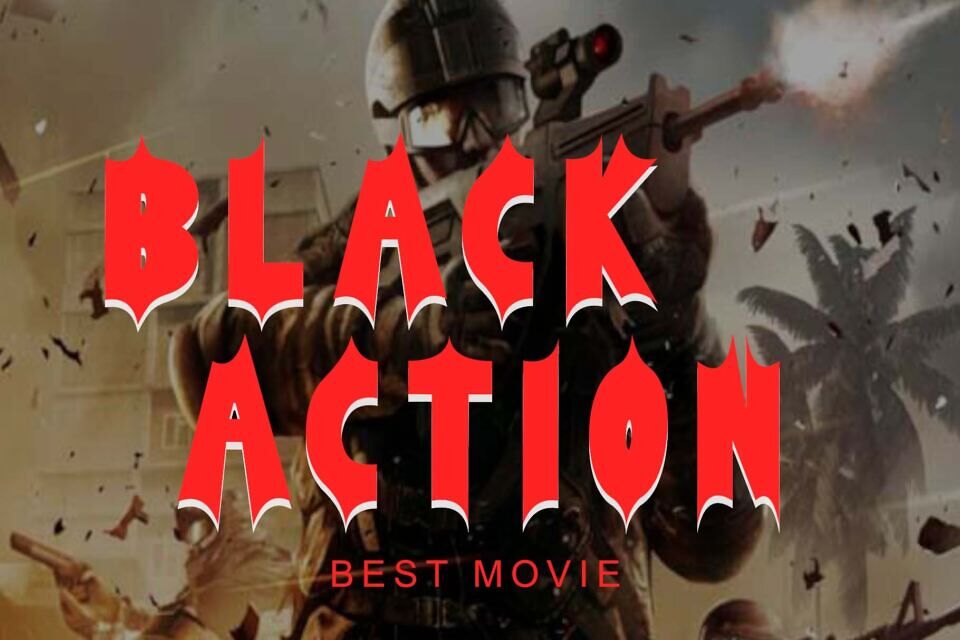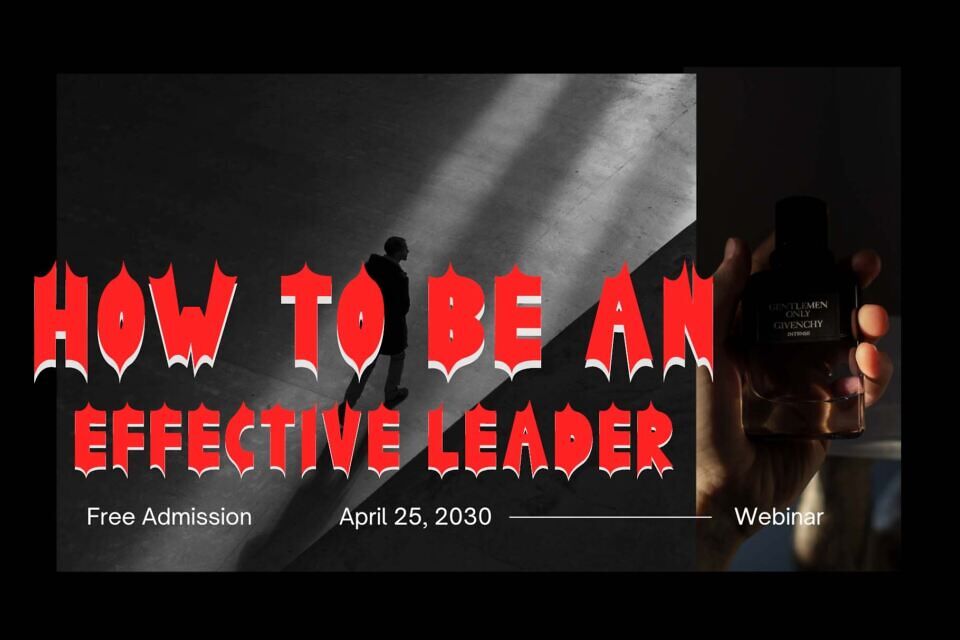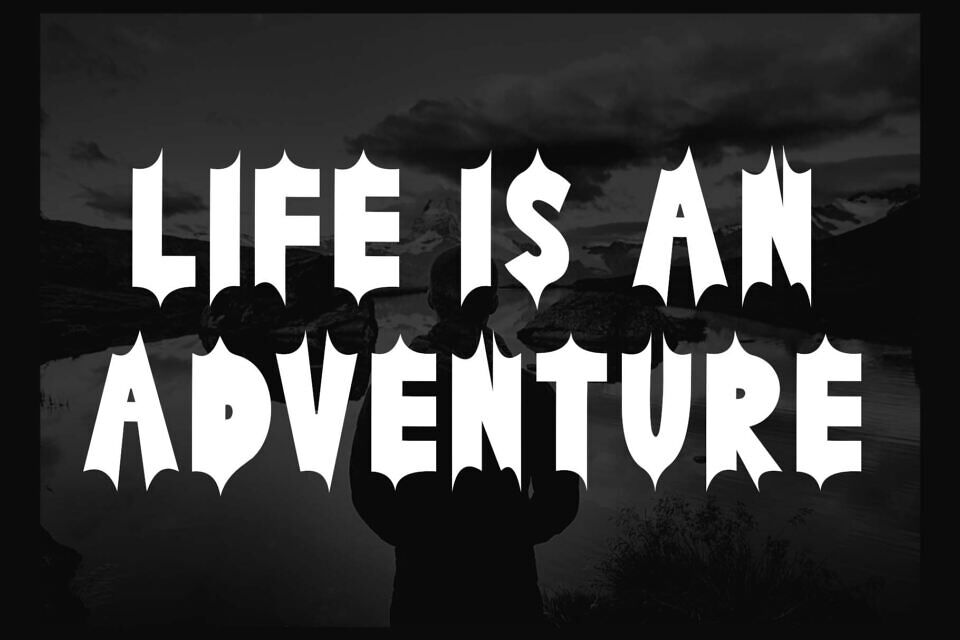
Battle Hunter Font
Battle Hunter is an elegant and professional blackletter font. It comes with capital letters, lowercase letters, numbers, punctuation, and multilingual support.
It is perfect for use in movie titles, business branding, stickers, logos, prints, book titles, magazines, comics, Easter, summer, spring, and more.